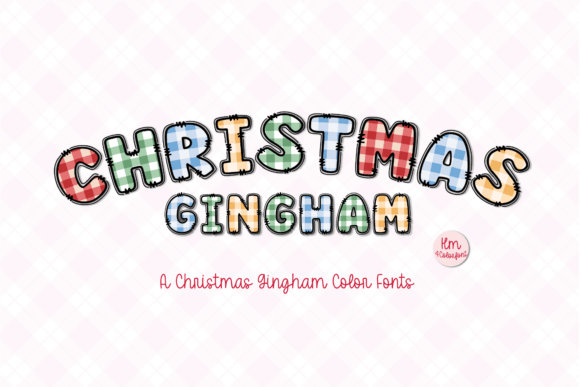
Christmas Gingham
A Warm Typographic Accent for the Holiday Season
As a designer who’s spent years navigating the vast landscape of typefaces, I’ve encountered countless fonts that promise to elevate a project. Christmas Gingham is one such font that immediately caught my eye—not for its novelty, but for its quiet confidence and visual warmth. It carries the charm of a well-worn holiday sweater, with just the right amount of personality to make it feel personal without being overbearing.
The First Impression: A Festive Yet Approachable Presence
At first glance, Christmas Gingham feels like a classic serif font with a modern twist. The serifs are soft and slightly rounded, giving the letters a gentle, inviting edge. It’s not overly ornate, which makes it versatile enough for both editorial and commercial use. The letterforms have a handcrafted quality that suggests a level of care in their creation, yet they remain clean and legible at a glance.
What stands out most is the font’s ability to evoke a sense of nostalgia and comfort. It’s the kind of typeface that feels at home on a holiday greeting card or a seasonal poster, but it also has the potential to work in more subtle contexts. Its design is reminiscent of traditional gingham fabric patterns, which adds a layer of texture and character that can be surprisingly effective in branding and packaging design.
Real-World Application: Where Does Christmas Gingham Belong?
Christmas Gingham shines in projects that require a touch of elegance and festivity. It’s particularly well-suited for logo design, especially for businesses that want to convey a warm, welcoming brand identity. When paired with a sans serif font, it can create a balanced and professional look that still feels personal and approachable.
In packaging design, this font brings a level of sophistication that complements both premium and casual products. It works especially well on gift boxes, product labels, and festive packaging where the visual appeal is as important as the functional aspect. For website headers and blog graphics, it adds a unique flair that can help a brand stand out in a crowded digital space.
It’s also an excellent choice for social media graphics, printable designs, and Canva templates. The font’s readability at larger sizes makes it ideal for headlines and short phrases, while its decorative qualities allow it to serve as a strong accent in editorial design and digital ads.
When to Use It Carefully: Balancing Style and Function
While Christmas Gingham is undeniably charming, it’s not without its limitations. As a display font, it should be used sparingly and with intention. Large headlines or brand marks made with this font can sometimes feel too stylized, which might not align with the professionalism expected in certain industries.
It’s best suited for short phrases, quotes, or decorative accents rather than long blocks of text. In web design, it’s important to test its performance in black and white and at smaller sizes to ensure it remains legible. The same applies to printable designs—always review the font on real mockups to see how it behaves in different contexts.
Additionally, when pairing Christmas Gingham with other fonts, consider the balance between serif, sans serif, script, and handwritten styles. It pairs well with modern sans serifs for contrast and with script fonts for a more playful tone.
Design Notes: Practical Considerations for Real Projects
Before committing to Christmas Gingham for a client or business project, there are a few practical steps to take:
- Test it in black and white to ensure it maintains clarity and legibility.
- Check small-size readability to confirm it works well in all formats.
- Try it on real mockups to see how it interacts with your design elements.
- Compare uppercase and lowercase to ensure consistency across all text types.
- Review spacing to avoid issues with line height and letter spacing.
- Test it beside other font styles to find the best font pairing for your project.
- Confirm commercial licensing before using it in any client or business context.
These steps will help you make informed decisions about whether Christmas Gingham is the right fit for your specific needs.
The Final Verdict: A Premium Font with Purpose
Christmas Gingham is a premium font that offers both aesthetic appeal and functional versatility. It’s not just another holiday font—it’s a creative font with the potential to enhance a wide range of design assets, from brand identity to digital products.
If you’re looking for a commercial font that can add a touch of warmth and personality to your work, Christmas Gingham is worth considering. Just remember to use it thoughtfully and always prioritize readability, hierarchy, and brand consistency in your design choices.